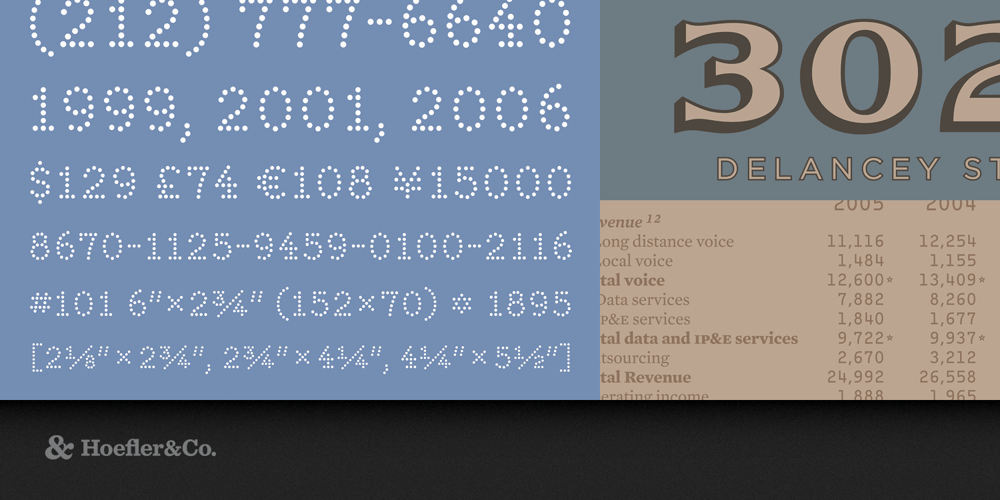
Numbers
Numbers font
Numbers Font Family was designed by Jonathan Hoefler and Tobias Frere-Jones and published by Hoefler & Co.. Numbers contains 16 styles and family package options. The world is filled with recognizable and unique numbers that were never available as fonts — until we designed the Numbers family. Numbers’ is a collection of typefaces designed by Jonathan Hoefler and Tobias Frere-Jones, which first appeared in the Pentagram Calendar of 2006. An unusually diverse type family containing sixteen formally unrelated styles, Numbers draws inspiration from a range of visual traditions unconnected with printing types, evoking the recognizable lettering of everyday objects such as playing cards, gasoline pumps, and banknotes. From the desk of the designer: Every year, Pentagram chooses twelve beloved typefaces for its iconic Pentagram Calendar. Traditionally, the calendar features works by typographers past and present, from timeless standards like Garamond and Bodoni to modern classics such as Knockout and Gotham. In 2006, Pentagram broke with tradition and selected twelve typefaces from the same designers: H&Co, who created for the calendar this collection of fifteen original fonts, called simply “Numbers.” For more than a century, typefounders considered numbers separately from the provision of other printing types. Nineteenth century type specimen books often displayed separate sections containing fonts of numbers alone, many of which contained unique features suited to specific kinds of settings. Fonts for tables contained digits designed to a standard width, so that columns would neatly align; those created for calendars contained forms such as “24/31” to accommodate orphan Sundays. The practice of creating specialized number fonts began to disappear at the beginning of the twentieth century, vanishing completely by the dawn of the digital age. Recognizing their appeal and usefulness this practice, H&Co revives the tradition, for this collection of new typefaces. The fonts in the Numbers series take their inspiration not from the history of printing types, but from other kinds of numbering familiar from the modern environment. Playing card numbers, instantly recognizable even out of context, have been revived as the Deuce typeface. The forms in the Greenback font are familiar from the U. S. dollar. Other fonts in the series draw inspiration from more distant sources, from vintage railroad cars to Soviet street signs.